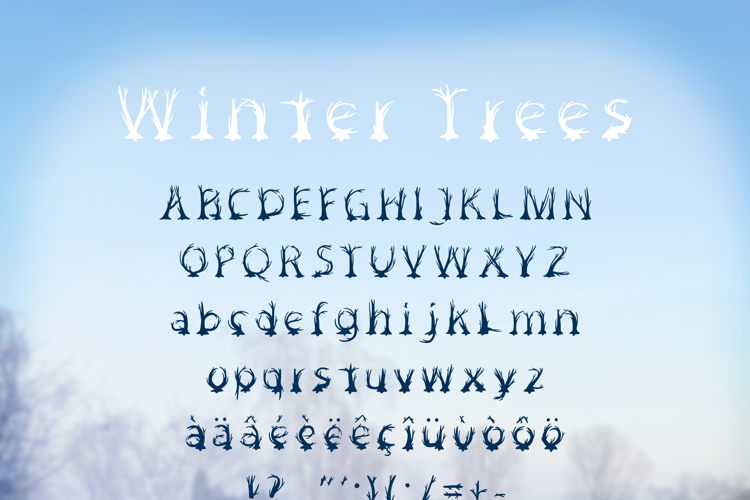
Winter Trees Font
About Winter Trees Font
The Winter Trees Font is a hand-drawn font inspired by Trees without leafs. It has organic shapes to represent trees in the winter